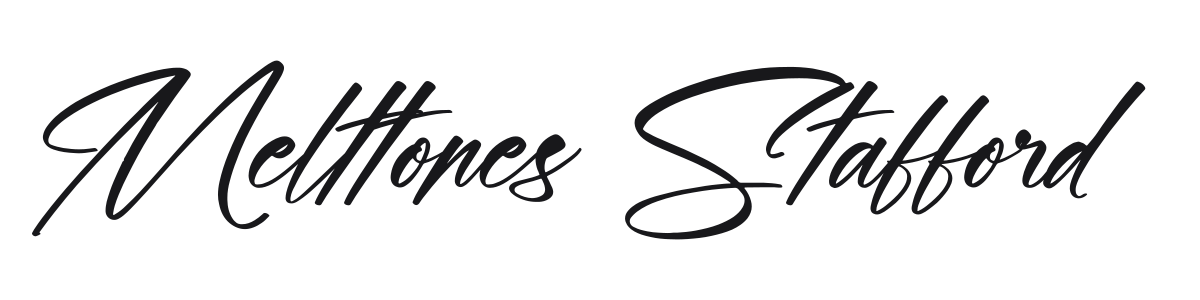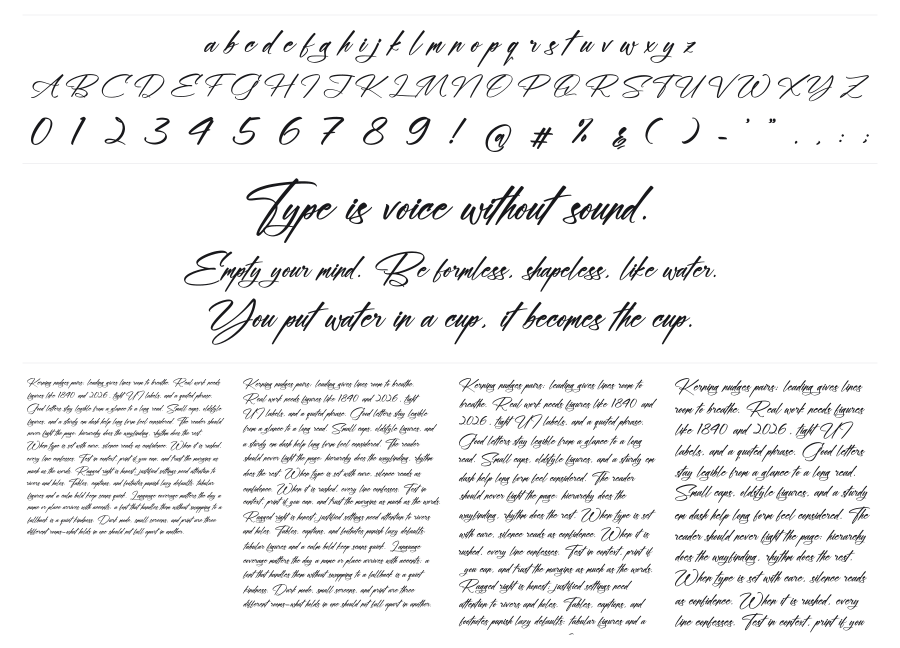
Melttones Stafford
Melttones Stafford is a contemporary brush script with sweeping ink strokes and dramatic contrast between thick stems and hairline connections. Its expressive baseline movement and trailing swashes give it an energetic, handcrafted quality that feels both polished and spontaneous. A strong choice for wedding stationery, fashion branding, and editorial headlines.